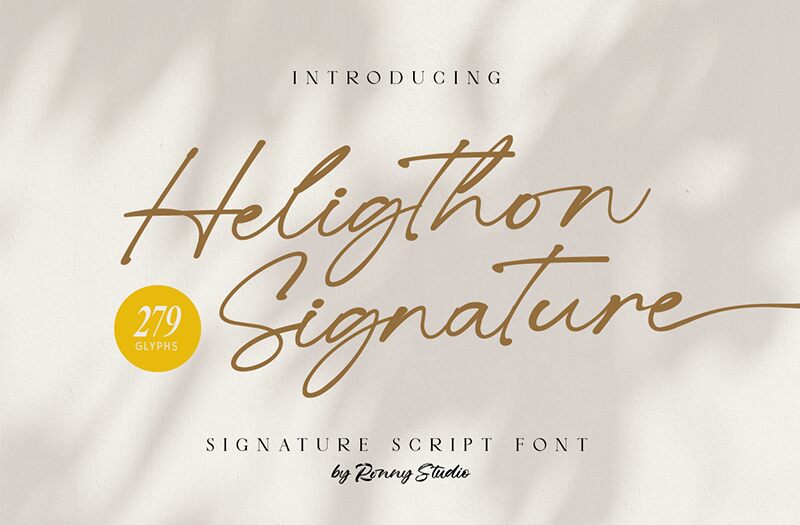
Heligthon Signature font designed by Ronny Studio is a flowing handwritten font made in light weight. It features well-designed curves with an elegant look that offers sophistication and expression. A personal yet beautiful touch can accompany each word the font writes.
The free handwritten font was designed for signatures, invitations, and business cards, as well as product packages or labels and branding projects. Developed readable enough, yet artistic in a way that complements quotes on a social media post, on feature images, or even website design titles and paragraphs.